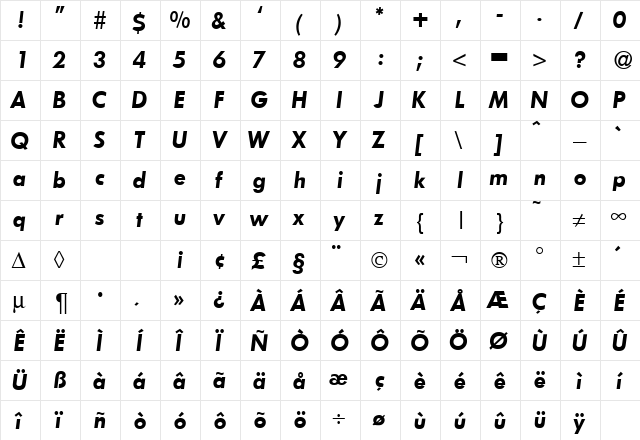
FunctionTwoDemi RegularItalic
Design Context for FunctionTwoDemi Typeface
FunctionTwoDemi trades formality for fun, with bouncy, characterful letterforms that bring warmth and energy to any project. The dynamic lean of this cut emphasises speed and emphasis in any layout.
Font Pairing: Pairs well with a rounded or humanist sans for body copy, maintaining the friendly tone without relying on FunctionTwoDemi to carry extended reading.
Pro Tip: Avoid using FunctionTwoDemi for long passages of text — it works best for headlines, labels, and short calls to action.